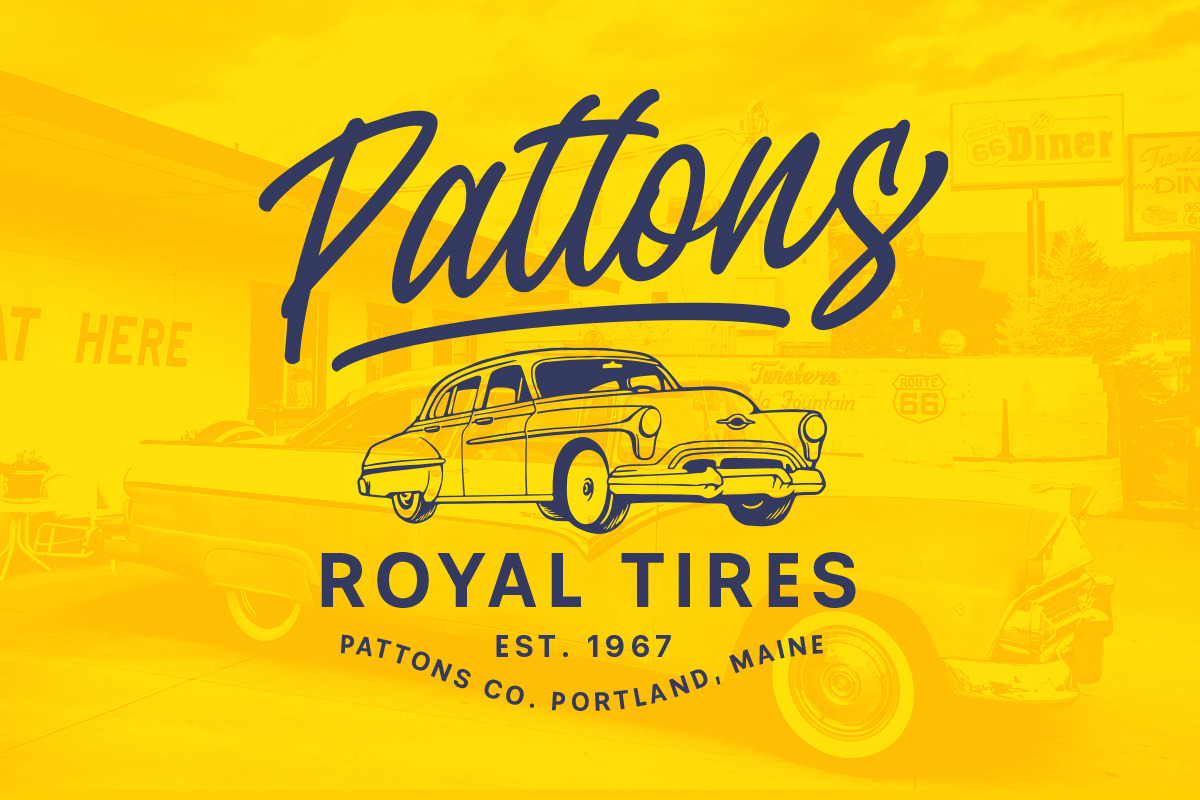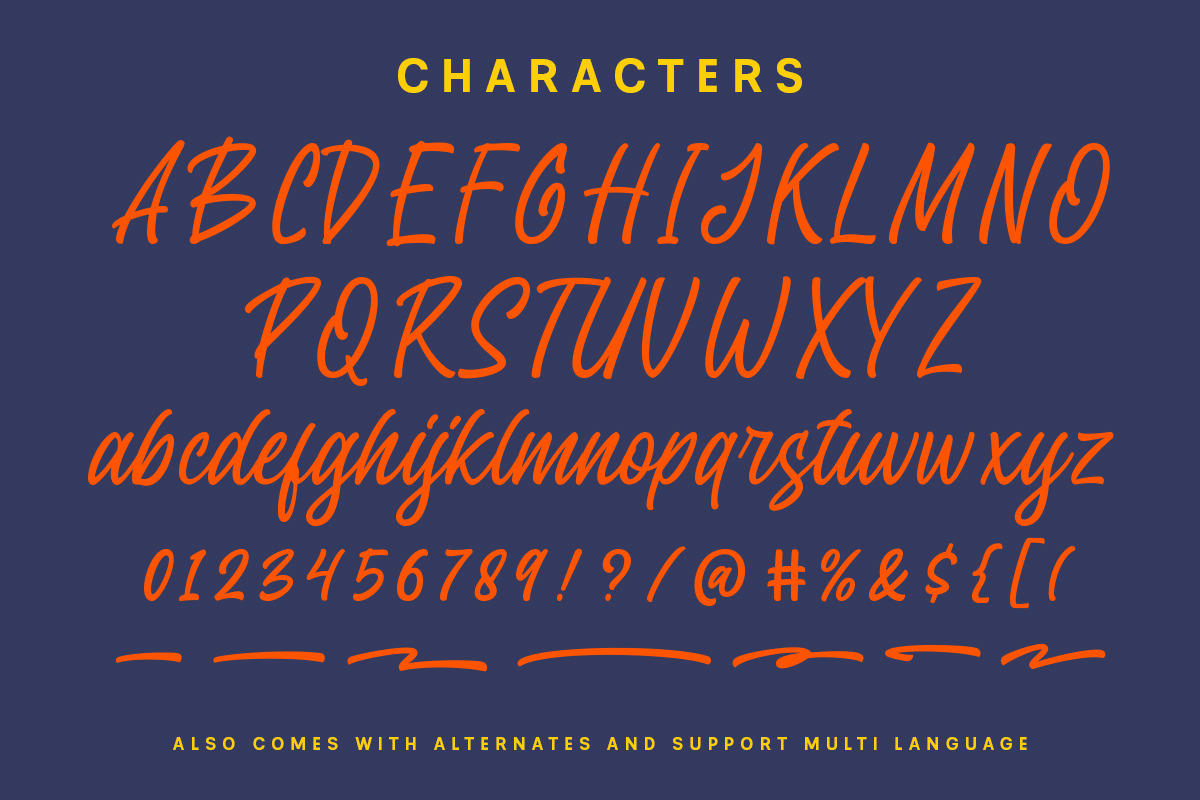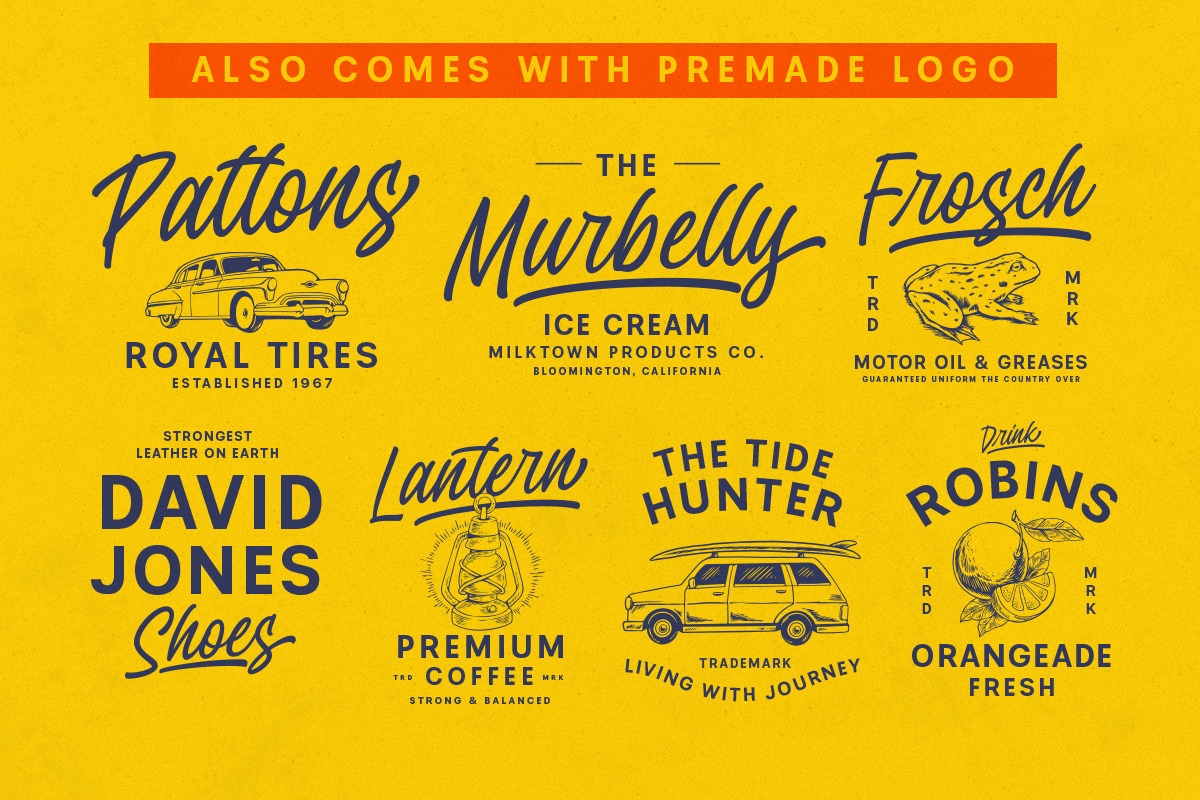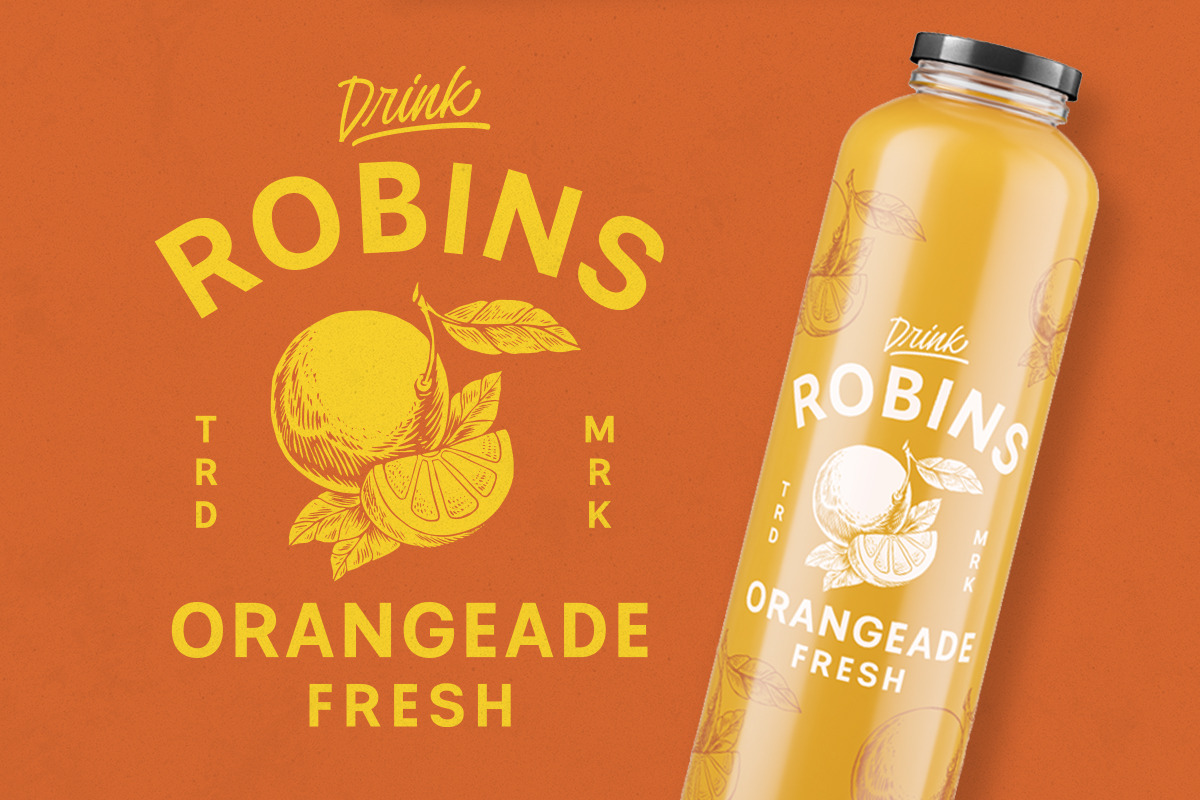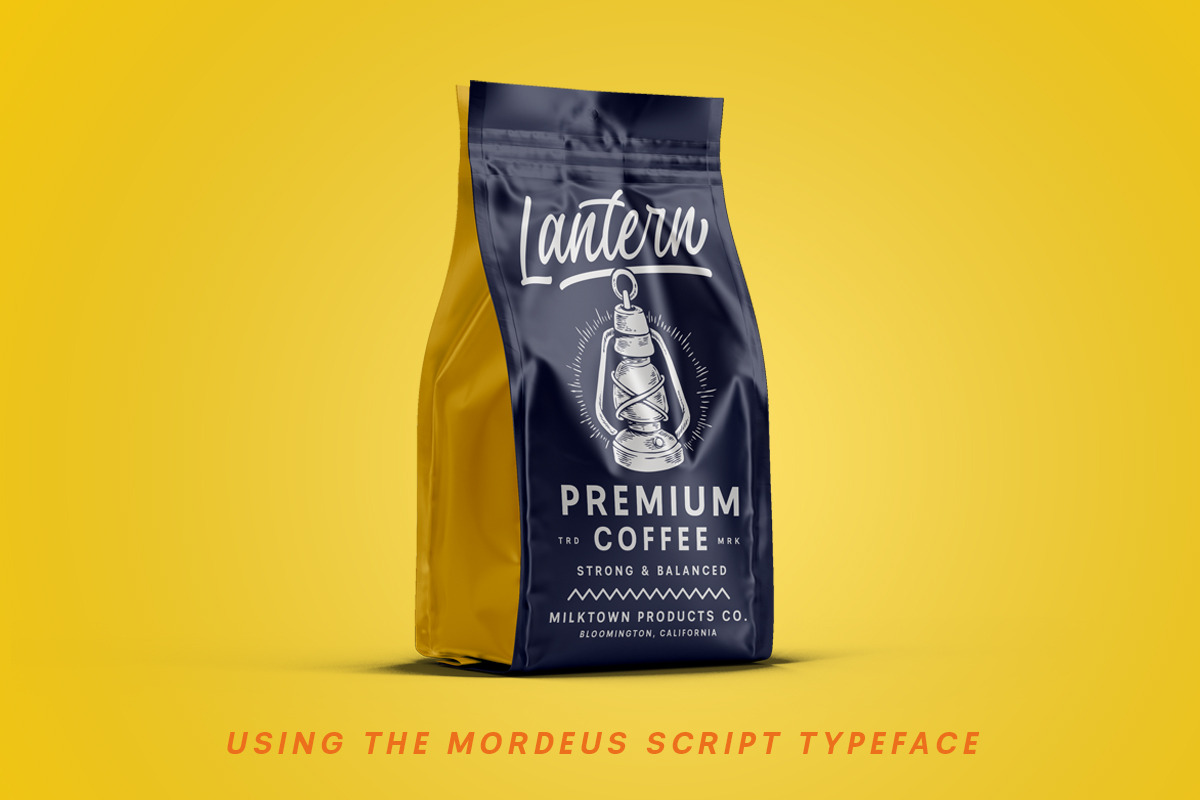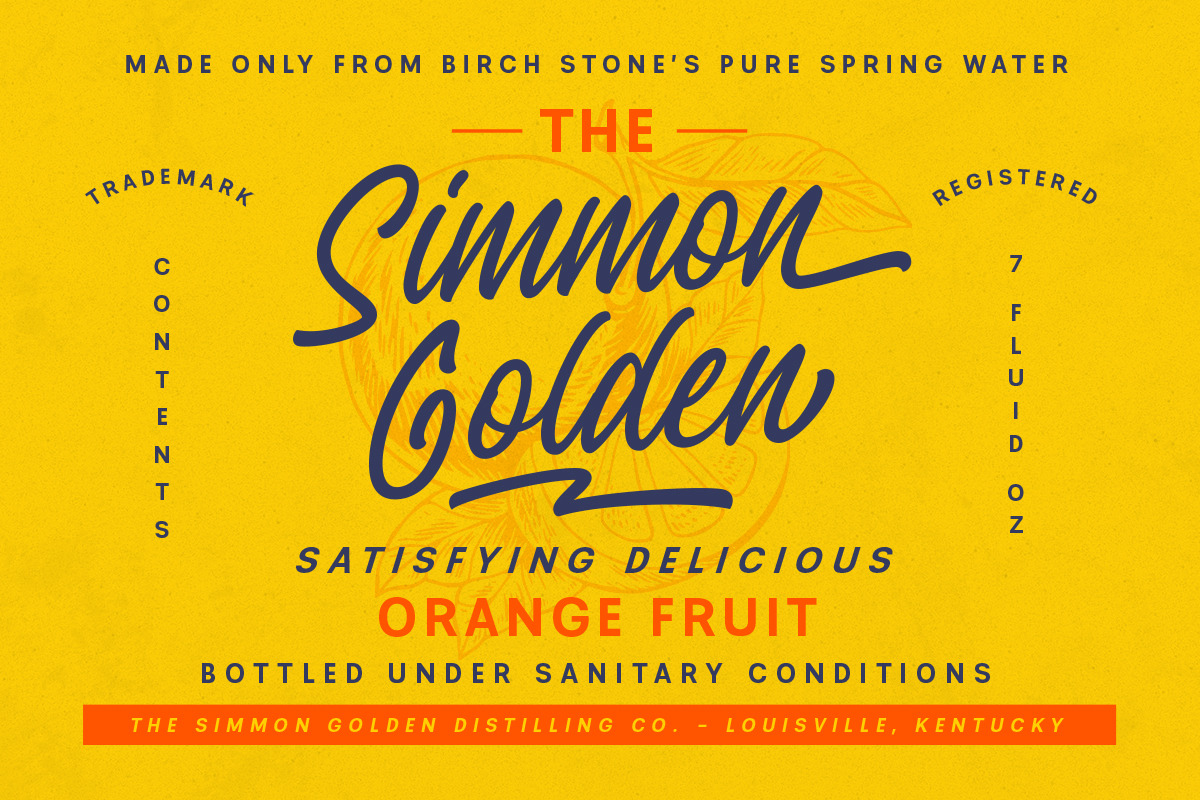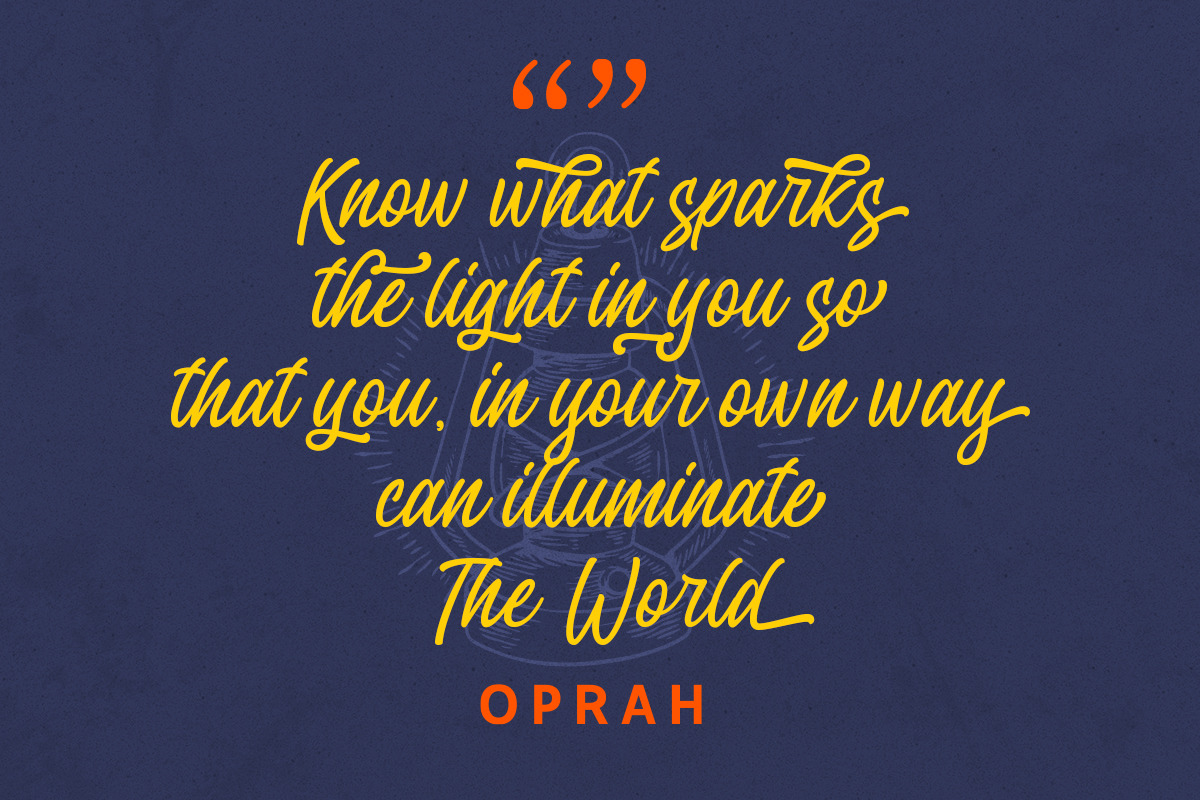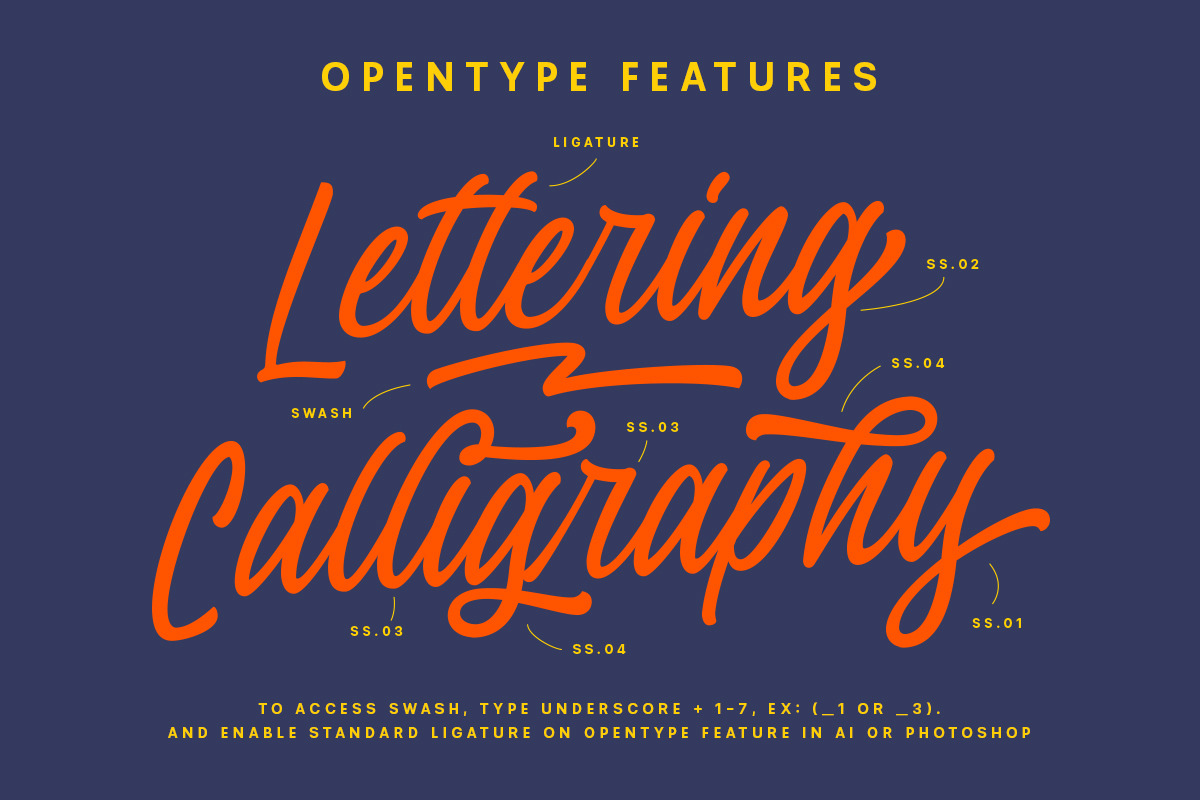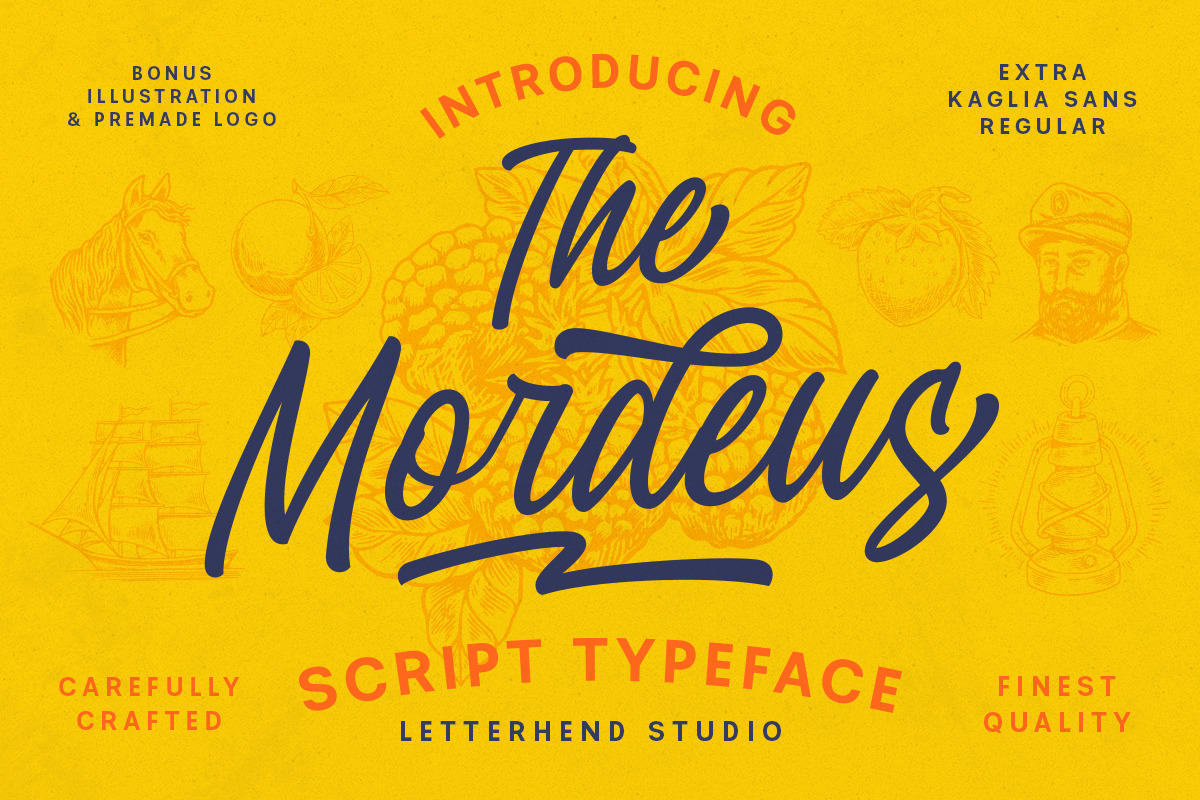
The Mordeus - Script Font + Extras
The Mordeus script font is a modern script with a touch of vintage look and feel. The swashes makes this font looks great for retro lettering which you can create in a sec! Also comes with illustration and premade logo as bonus. This type of font perfectly made to be applied especially in logo, headline, signage and the other various formal forms such as invitations, labels, logos, magazines, books, greeting / wedding cards, packaging, fashion, make up, stationery, novels, labels or any type of advertising purpose.
- alternates / swashes and ligatures
- Illustrations and premade logos